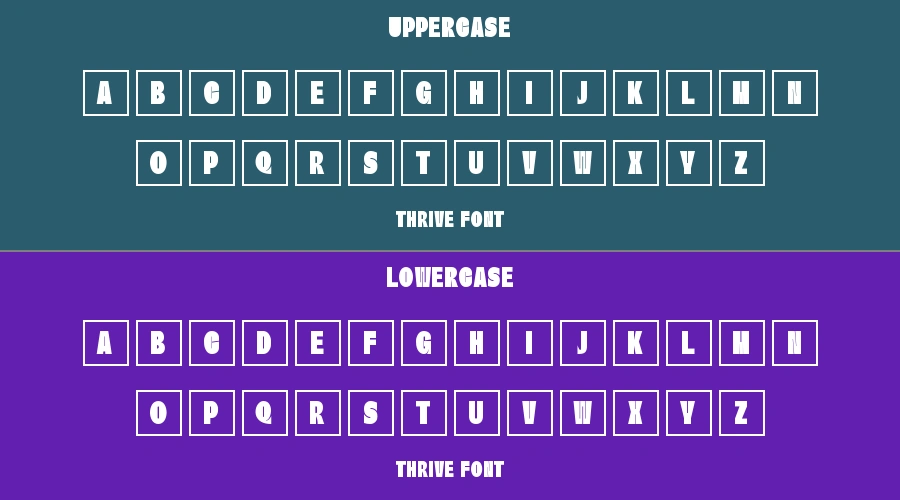
About Thrive Font
Thrive Font embodies typographic excellence through its masterful combination of geometric precision and exceptional clarity. Created for event branding, this typeface delivers exceptional flexibility and consumer connection across all applications. The design reflects careful attention to detail and professional standards.
Advanced capabilities include distinctive rounded apexes and versatile terminal characters, giving designers creative control. When used in data tables, Thrive Font exhibits remarkable large format impact. The harmonious balance between joint detail and artistic merit sets this typeface apart.